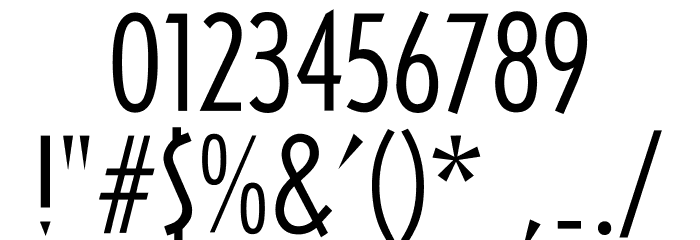
UKIJ Mejnuntal Font
This font features a distinct and modern design with tall, narrow characters that convey a sense of elegance and sophistication. The uppercase letters are particularly elongated, giving them a striking appearance, while the lowercase letters maintain a more traditional form. The numerals are consistent with the overall style, offering a clean and cohesive look. Special characters are well-integrated, ensuring versatility in various applications. The font's unique style makes it suitable for creative and contemporary projects, where a bold statement is desired.
A modern, tall, and narrow font with elegant, elongated characters.
- Proposed Projects: Ideal for branding, advertising, poster design, and editorial layouts.